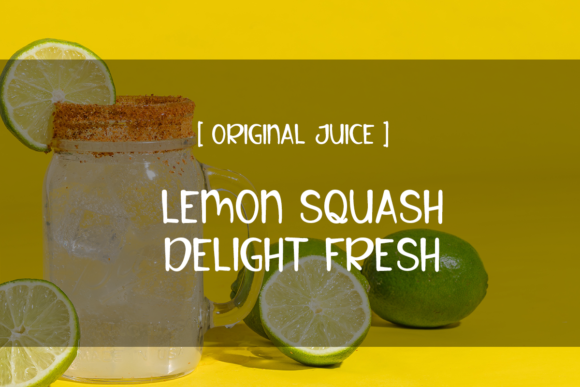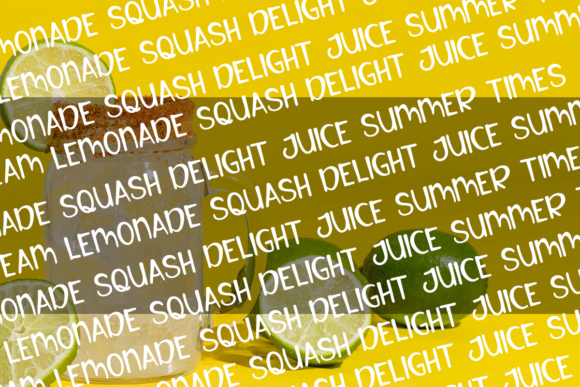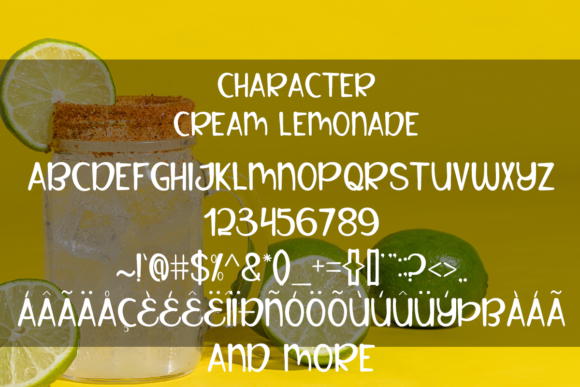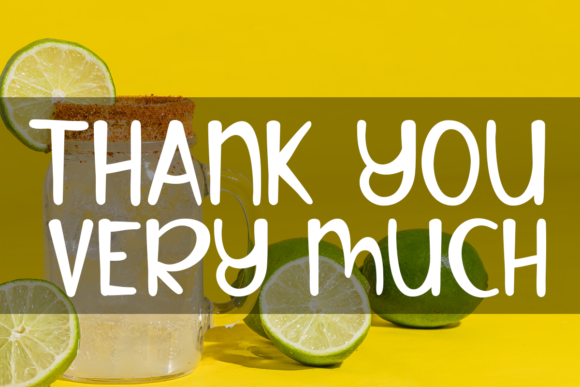
Cream Lemonade Font: The Perfect Addition to Your Font Library
Are you a designer or crafter looking for a unique and versatile font to elevate your creations? Look no further than the Cream Lemonade Font. This cool and readable handwritten font is perfect for a wide range of projects, from branding and advertising to crafting and DIY tutorials. In this article, we’ll take a closer look at the Cream Lemonade Font and explore its features, benefits, and uses.
What is Cream Lemonade Font?
Cream Lemonade Font is a beautiful, handwritten font that is both elegant and approachable. Its smooth, cursive lines and rounded edges give it a friendly and inviting feel, making it perfect for designs that require a personal touch. The font is highly legible, even at small sizes, making it ideal for use in a variety of applications, from digital media to print materials.
Key Features of Cream Lemonade Font
- Handwritten style: Cream Lemonade Font has a unique, handwritten look that sets it apart from more traditional fonts.
- Cool and readable: The font is designed to be easy to read, even at small sizes, making it perfect for use in a variety of applications.
- Versatile: Cream Lemonade Font can be used for a wide range of projects, from branding and advertising to crafting and DIY tutorials.
- Elegant and approachable: The font’s smooth, cursive lines and rounded edges give it a friendly and inviting feel.
Benefits of Using Cream Lemonade Font
So why should you choose Cream Lemonade Font for your next project? Here are just a few benefits of using this amazing font:
- Adds a personal touch: Cream Lemonade Font’s handwritten style gives your designs a personal, human touch that sets them apart from more traditional fonts.
- Enhances readability: The font’s high legibility makes it easy for readers to quickly and easily understand your message.
- Versatile: Cream Lemonade Font can be used for a wide range of projects, from digital media to print materials.
- Unique: The font’s unique style ensures that your designs will stand out from the crowd.
Uses for Cream Lemonade Font
Cream Lemonade Font is perfect for a wide range of projects, including:
- Branding and advertising: Use Cream Lemonade Font to create eye-catching logos, ads, and marketing materials that stand out from the crowd.
- Crafting and DIY tutorials: Add a personal touch to your crafting and DIY tutorials with Cream Lemonade Font’s elegant, handwritten style.
- Digital media: Use Cream Lemonade Font in your digital media projects, such as videos, social media graphics, and blog posts.
- Print materials: Cream Lemonade Font is perfect for use in print materials, such as brochures, flyers, and business cards.
In conclusion, Cream Lemonade Font is a cool and readable handwritten font that is perfect for designers and crafters looking to add a personal touch to their creations. Its unique style, high legibility, and versatility make it an excellent addition to any font library. Whether you’re working on a branding project, crafting tutorial, or digital media project, Cream Lemonade Font is sure to enhance your design and help you achieve your goals.